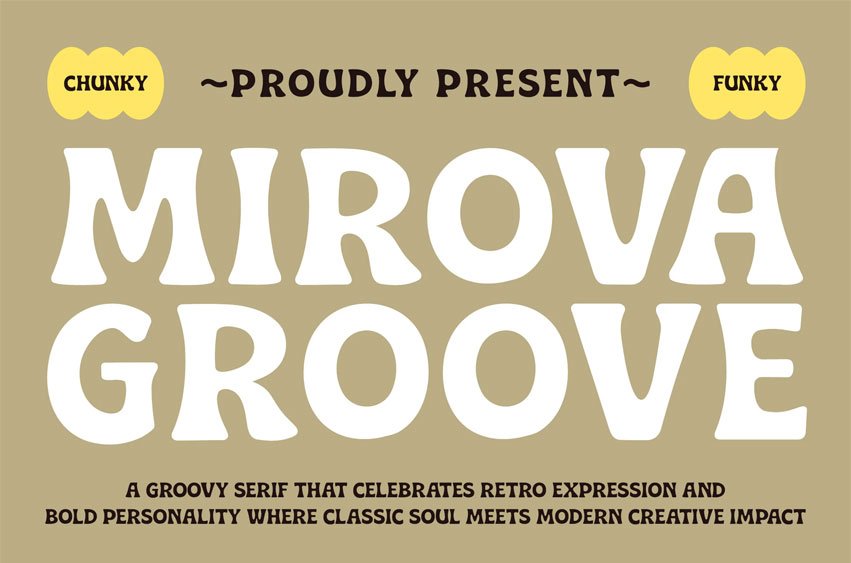
Mirova Groovy Font
Mirova Groovy Font Retro Serif Font is a chunky and funky display serif inspired by classic 70s typography with a modern twist. Its bold curves, soft edges, and expressive proportions create a warm retro atmosphere while maintaining strong visual impact. The playful serif details give it personality that feels both nostalgic and confidently contemporary.
Designed to stand out in bold creative projects, this font is perfect for headlines and statement typography. Whether used in branding, posters, packaging, or social media visuals, it brings vintage charm and energetic character to every layout.